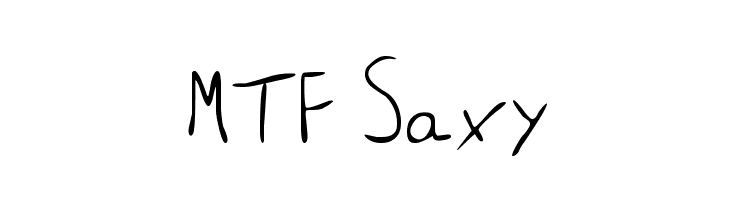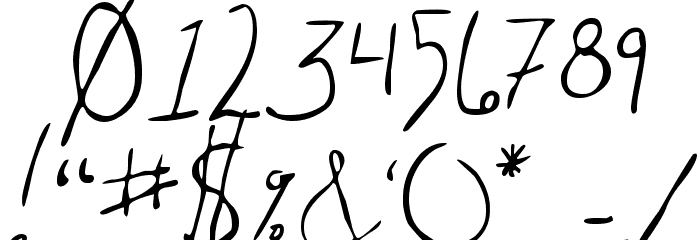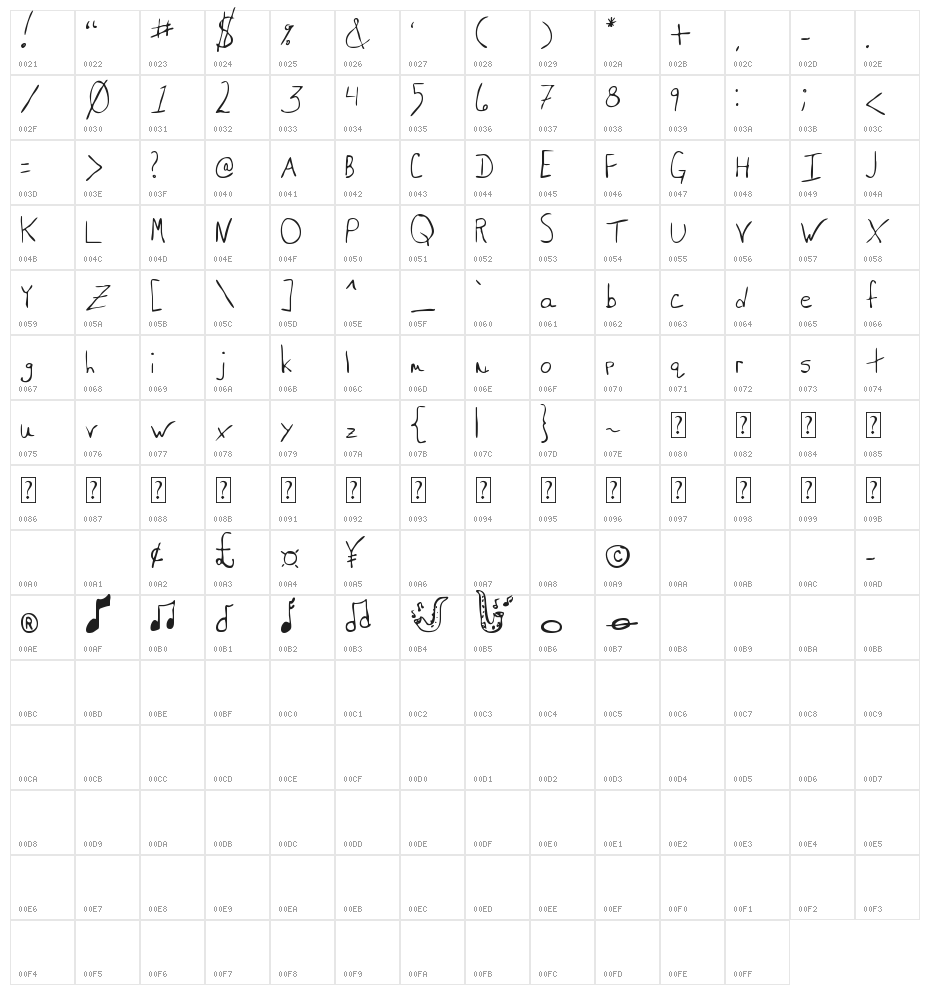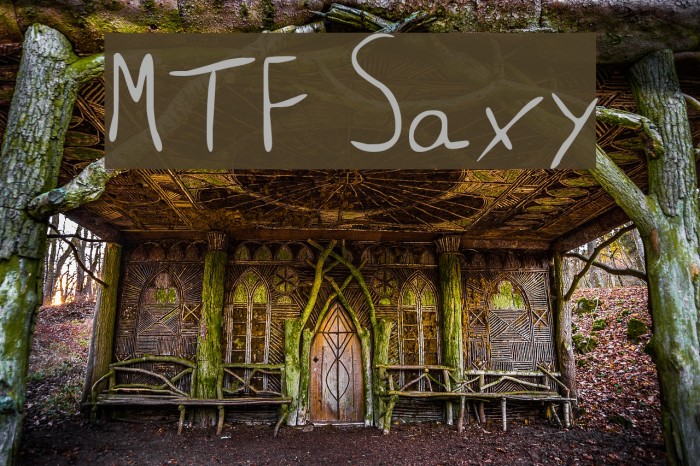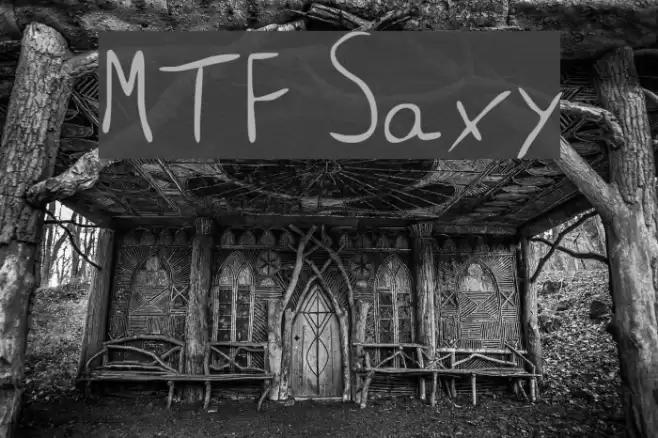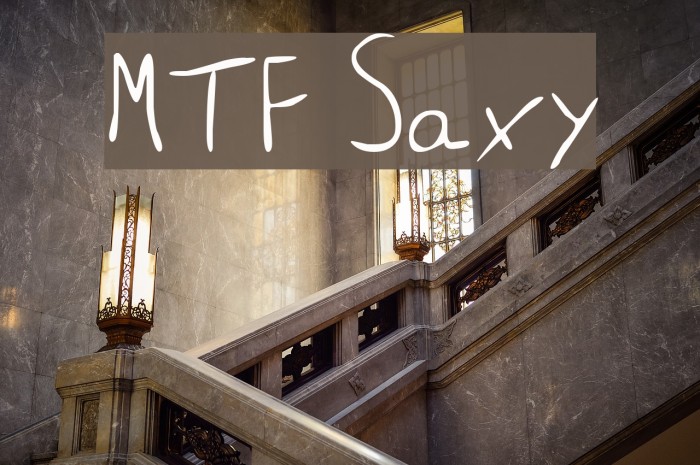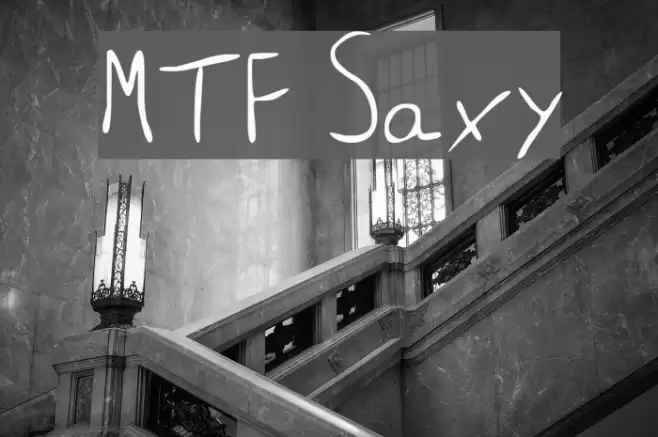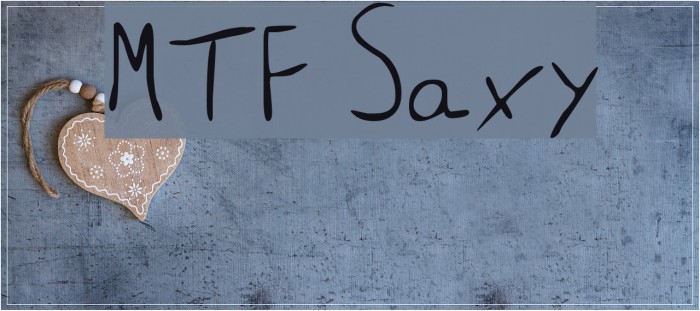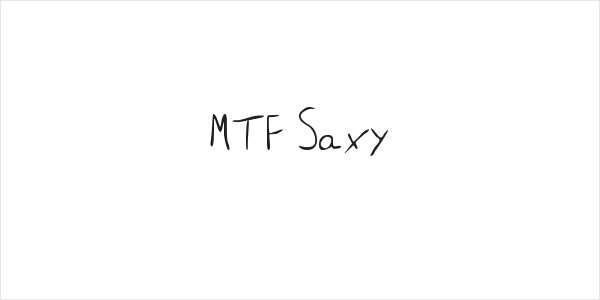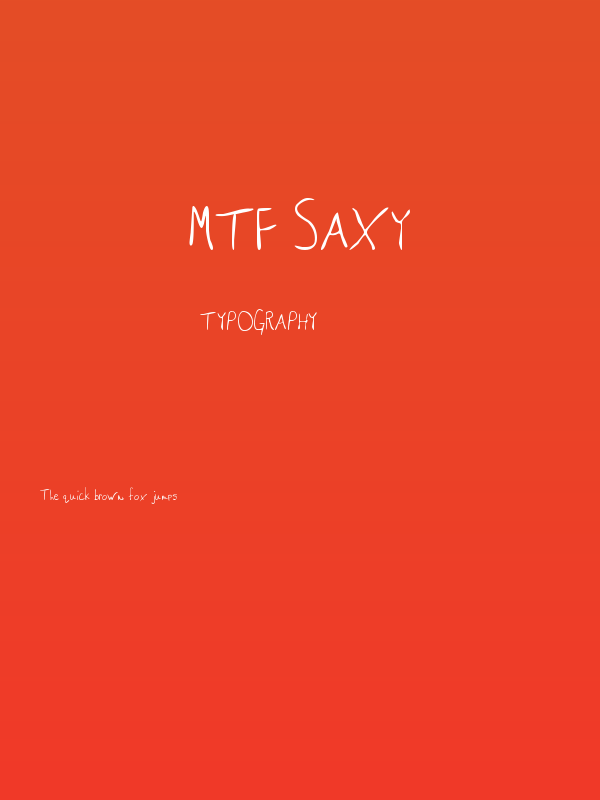
MTF Saxy Font
MTF Saxy Description
This font features a playful and casual handwritten style, characterized by its uneven strokes and spontaneous appearance. The letters vary in height and angle, giving it a dynamic and informal look. The uppercase and lowercase letters maintain a consistent flow, while the numerals and special characters complement the overall aesthetic. The font's organic and freeform nature makes it ideal for projects that require a personal touch or a relaxed vibe. Its unique style is both approachable and distinctive, making it suitable for creative and artistic applications.
Overall StyleCasual, Playful
Use CaseHeadlines, Informal text, Creative projects
Proposed ProjectsGreeting cards, personal blogs, children's books, informal invitations, and creative branding.